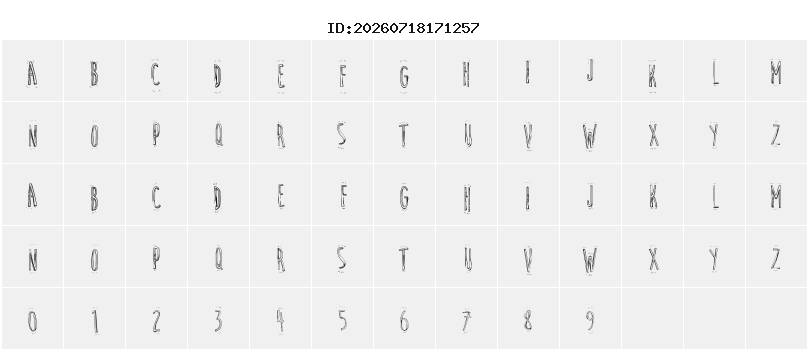
• Font Name: Cute Cartoon
About Cute Cartoon.ttf
Cute Cartoon.ttf is a modern, elegant sans-serif font designed for ultimate readability and visual harmony. Perfect for branding, headlines, web design, and print materials.